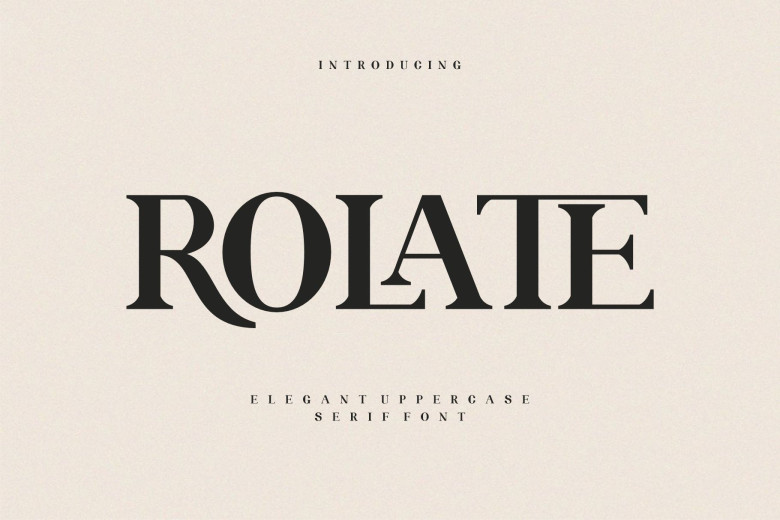
Rolate Font
ROLATE is a stunning serif typeface. Modern yet nostalgic, ROLATE can be used for magazines, logos, social media content and more! Already matched and ready to pair up for your next project! If you want a touch of elegance in your designs – elegant contemporary chic style to boot – ROLATE will meet that need perfectly!
Plus it comes equipped with OpenType features including punctuation marks, ligatures and numbers as well as support for multiple languages!
Rolate Serif Font